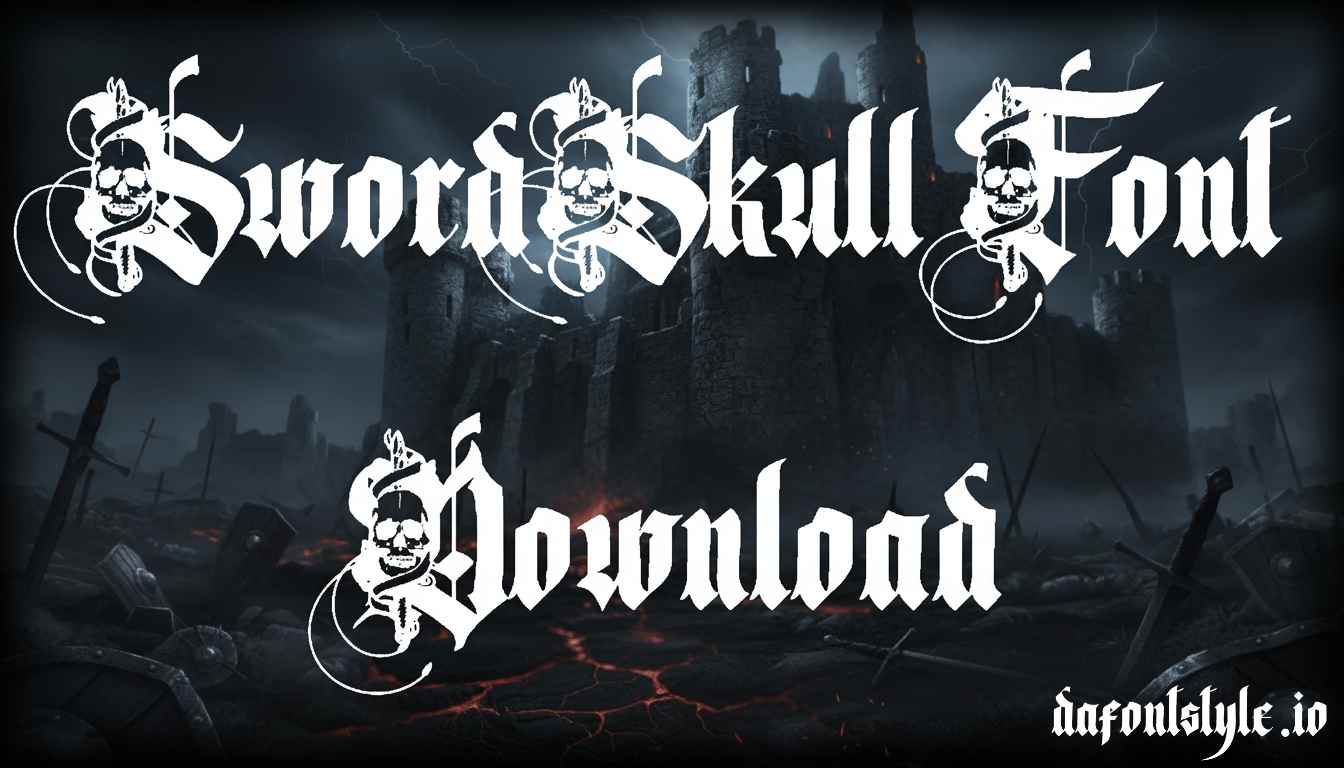
SwordSkull Font Preview
SwordSkull
SwordSkull is a gothic font made by Billy Argel (2021). Sharp, dark and dramatic, it follows the blackletter tradition of old European manuscripts. It's a free download, and you can try it with your own text in the preview above first.
What You Can Type With SwordSkull
SwordSkull covers the full alphabet in upper and lowercase, plus all ten numbers, so you can set names, dates and prices without switching fonts. Punctuation is limited, so look at the character map if you need a specific symbol. It also has the accented letters you need for Spanish, French, Portuguese and Italian.
Where SwordSkull Works Best
Designers usually reach for fonts like SwordSkull when they're making tattoos, metal band logos and dark fantasy titles. Its lowercase letters are small compared to the capitals, so set it a size or two bigger than usual. The file has no kerning data, so in logos and big titles check pairs like AV, To and Wa and tighten the spacing by hand. Blackletter is very hard to read in all caps, so type in normal upper and lowercase.
Who designed SwordSkull font?
Does SwordSkull support accented letters?
Yes. SwordSkull includes the accented letters needed for Spanish, French, Portuguese and Italian, so it works for more than just English.